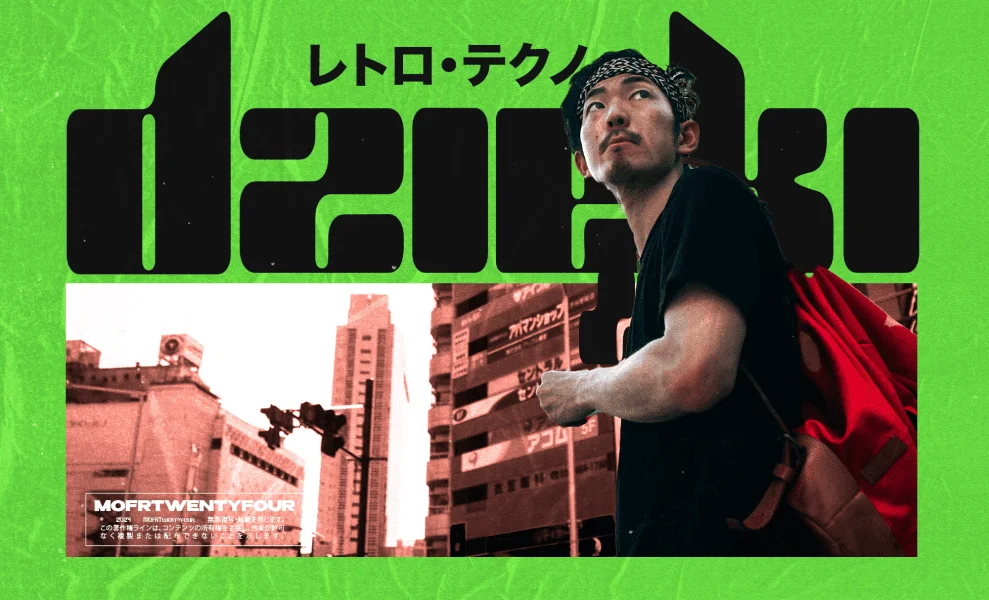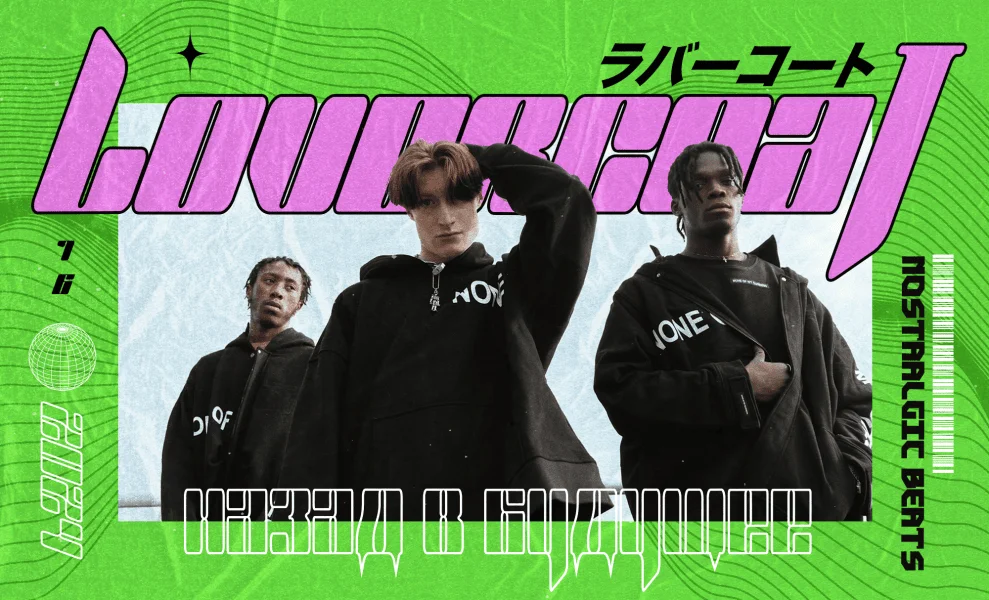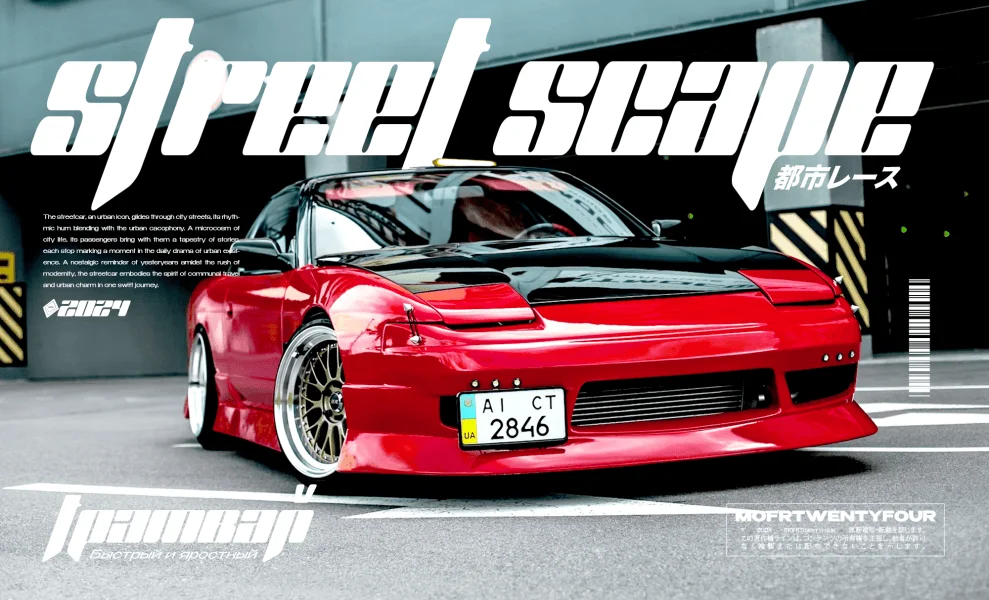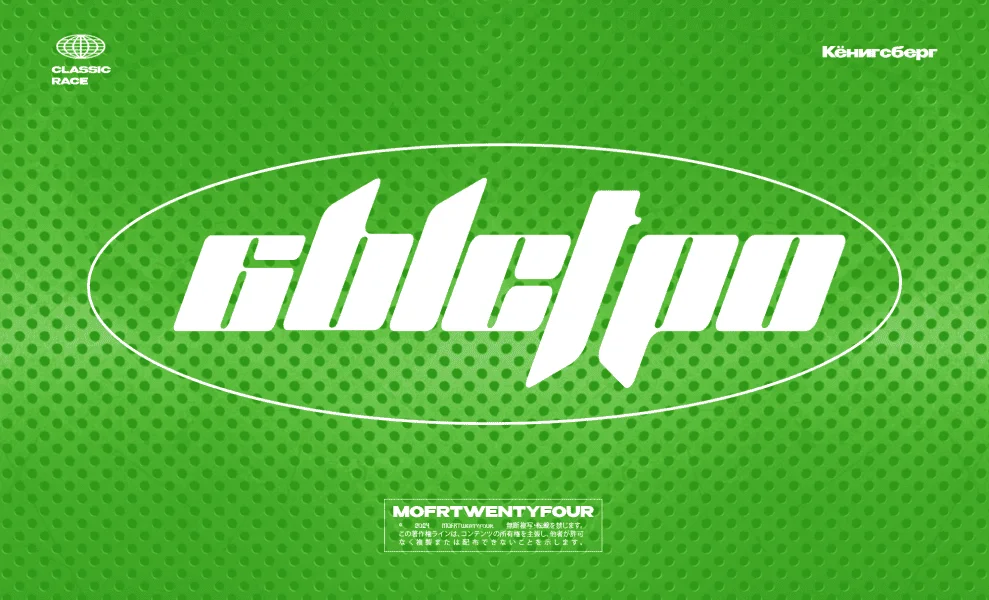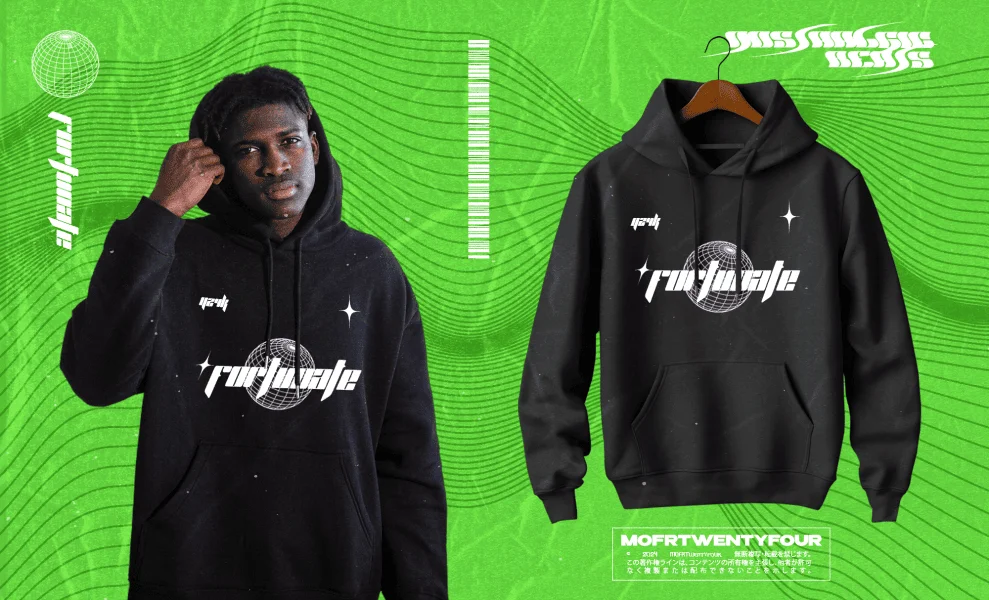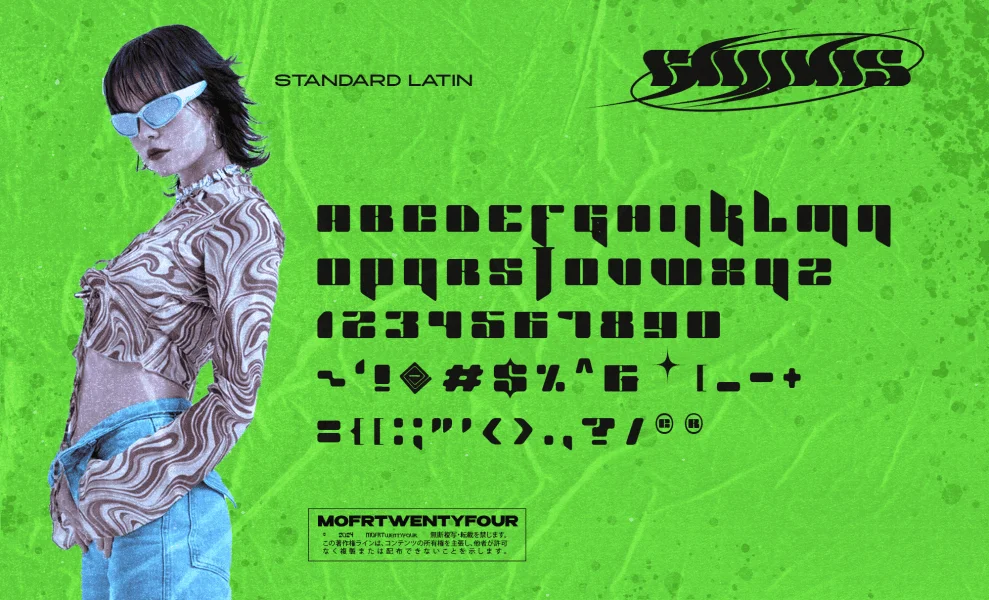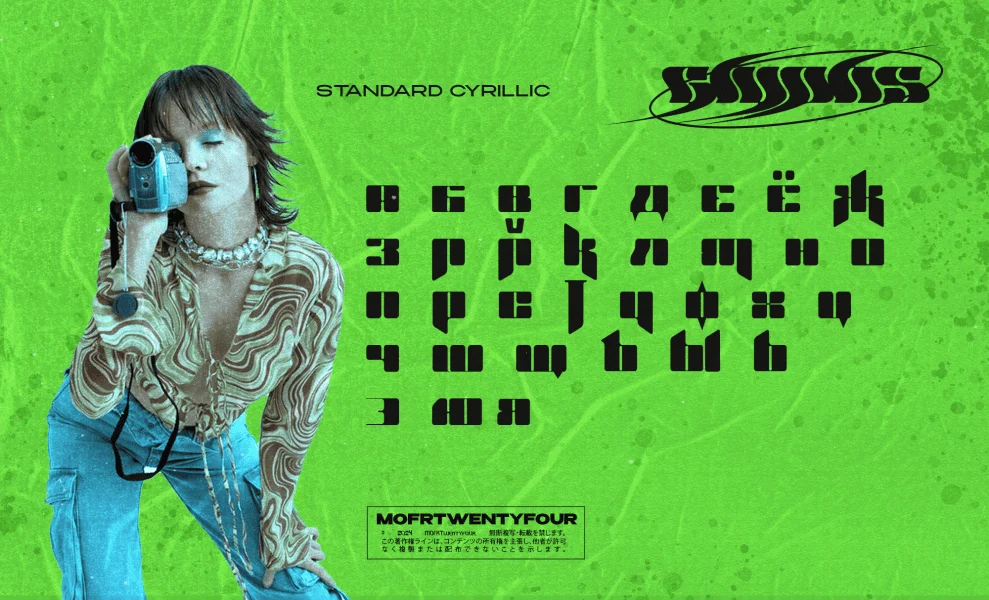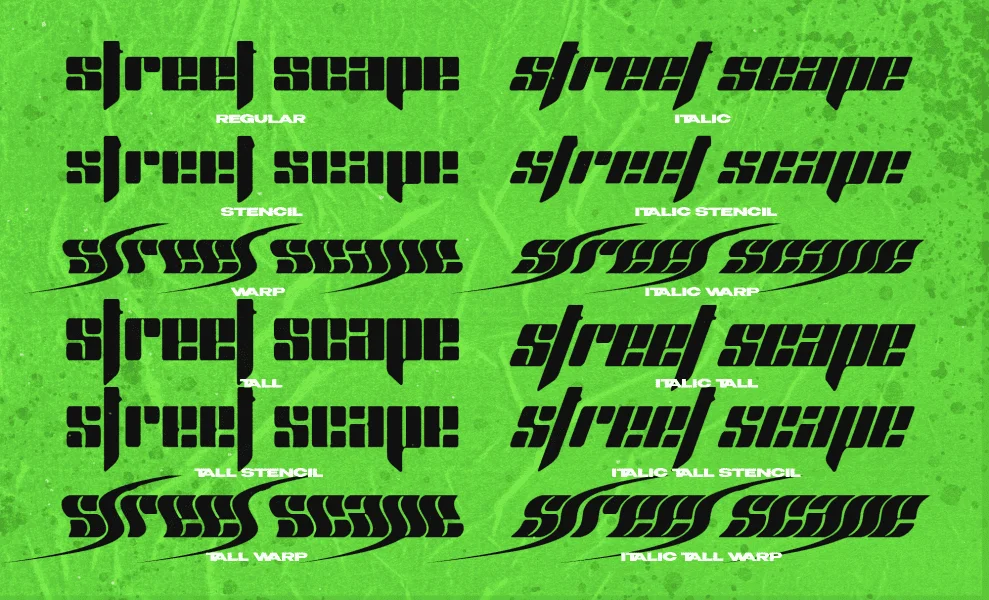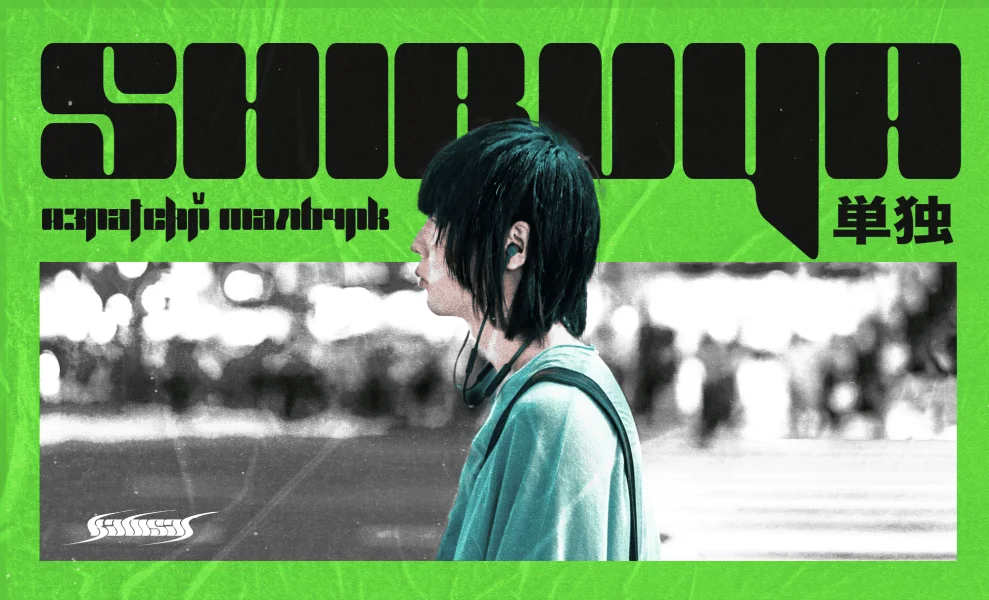
Unveiling Kabisat, the quintessence of Retro Techno Font brilliance. Radiating with daring boldness, unique character, and an unmissable y2k flavor, Kabisat packs a design that forecasts the future. No language is too distant, no script too complex – courtesy of its multilingual support & Cyrillic compatibility, Kabisat thrives across cultures. With its 12 variants of font families, Kabisat flaunts unbeatable shapes and effects. Perfect for adding that striking touch to your branding, typography, poster designs, headlines, T-shirt art, and more. Brace yourself to raise the bar of your creative projects with the striking allure and adaptive charm of Kabisat.